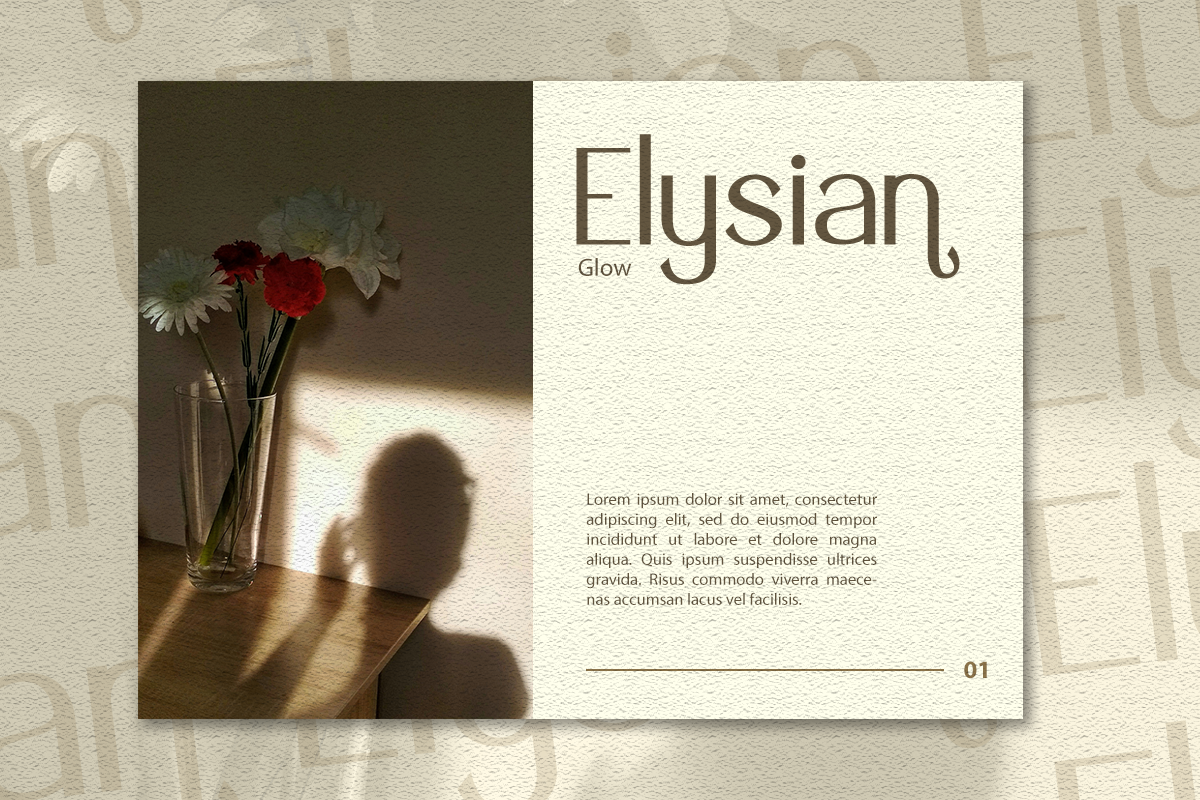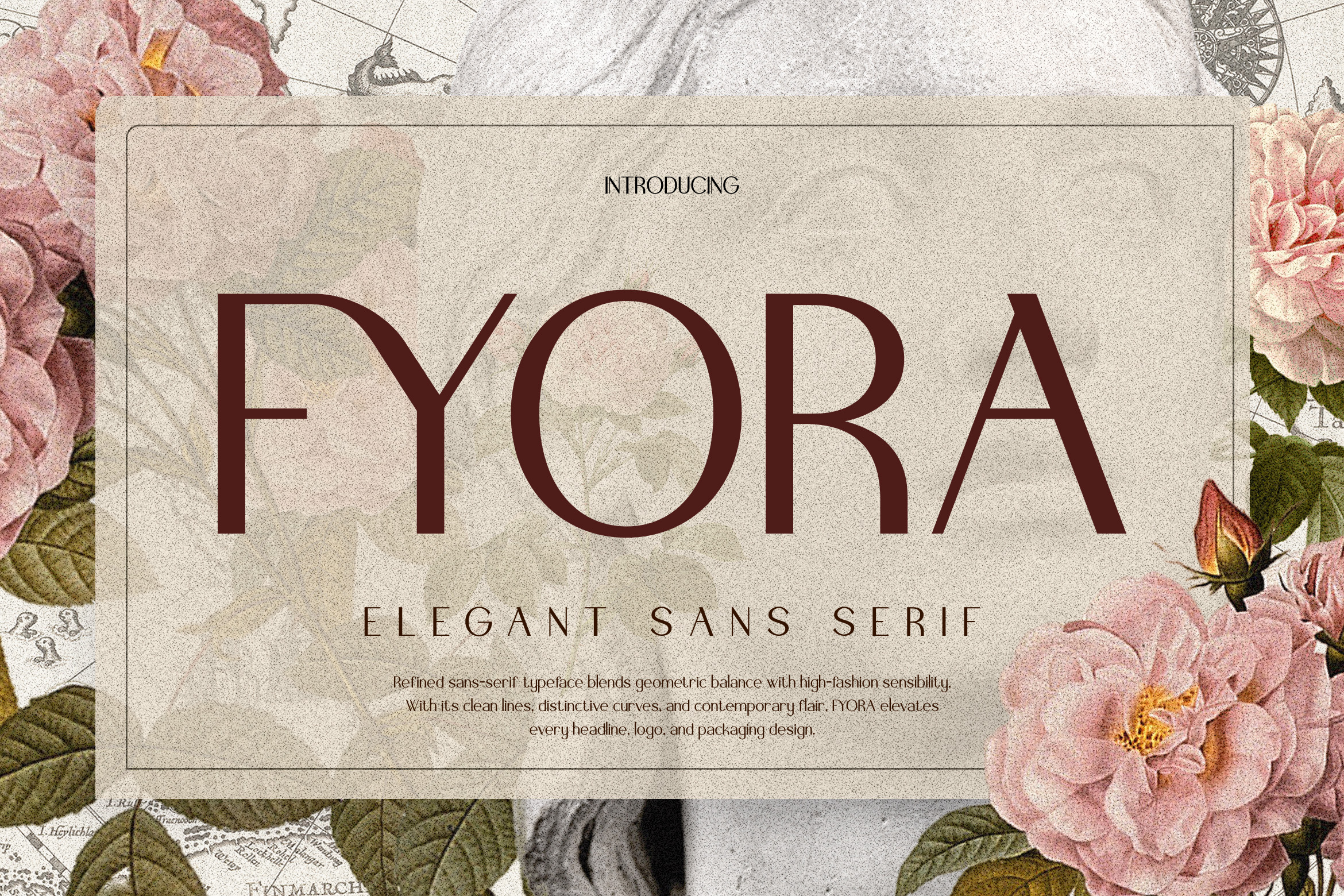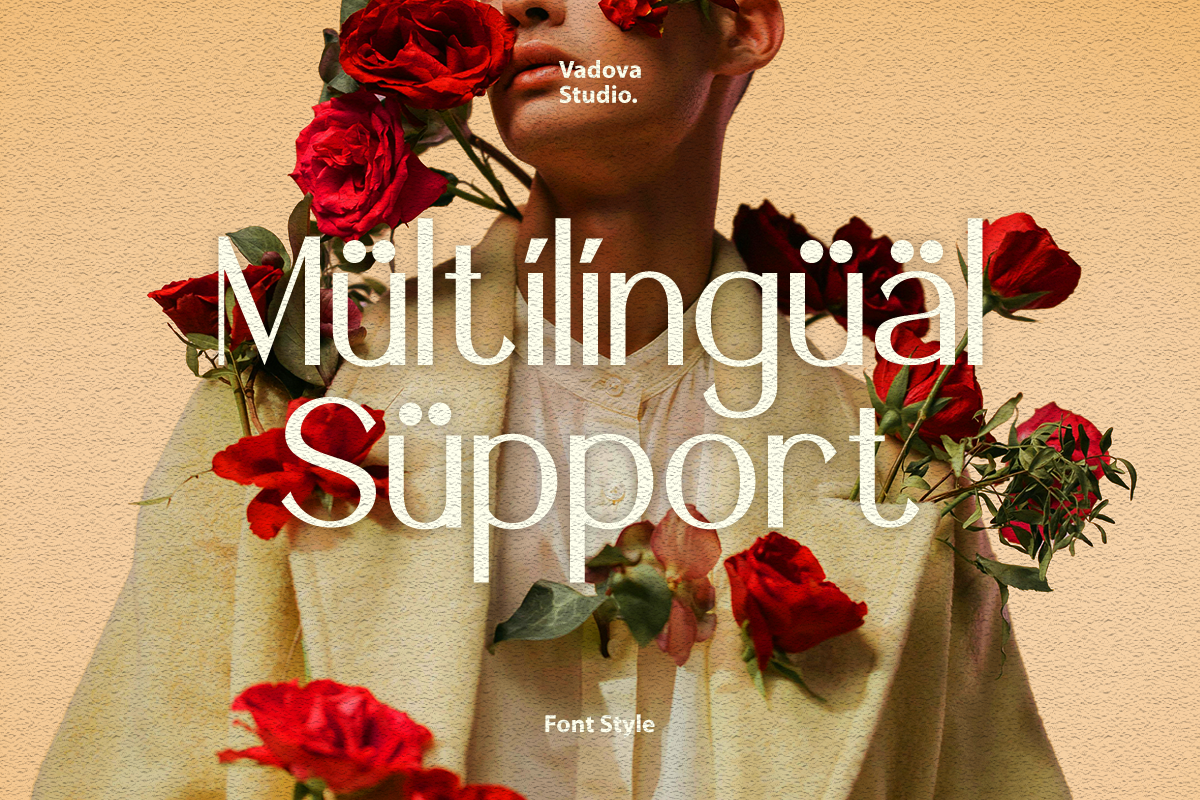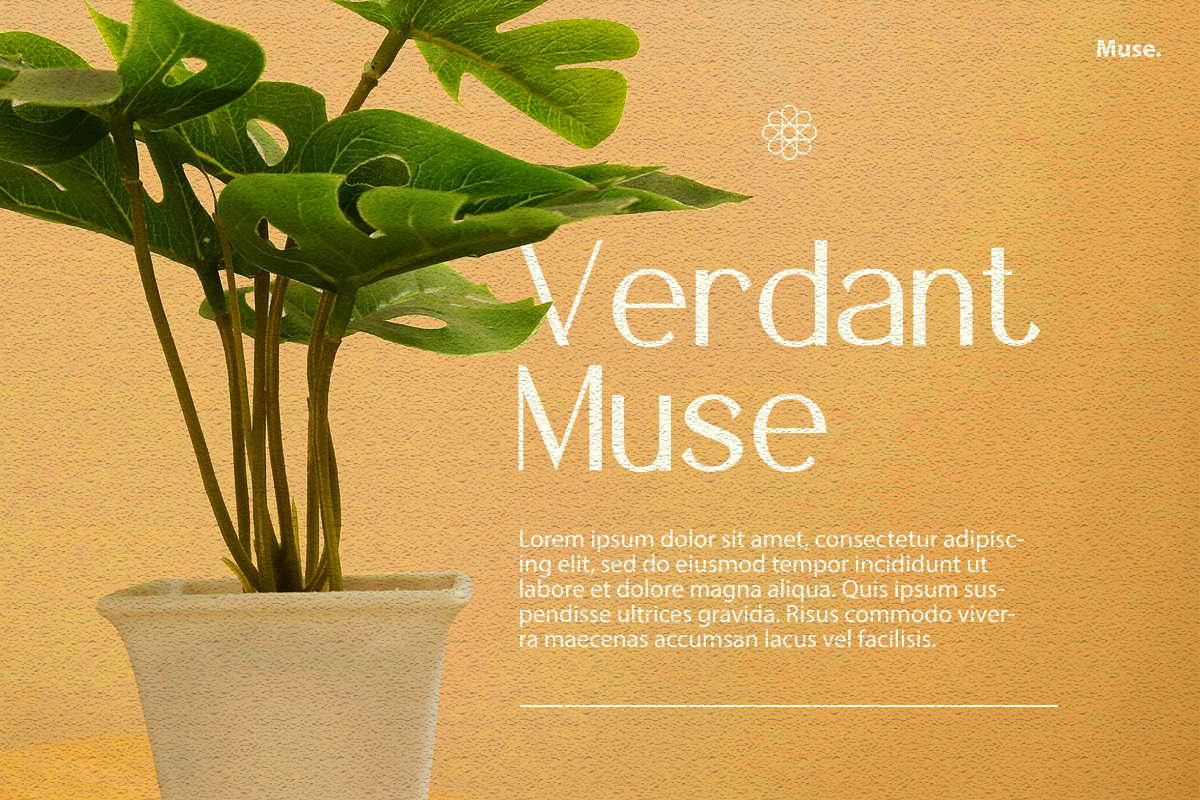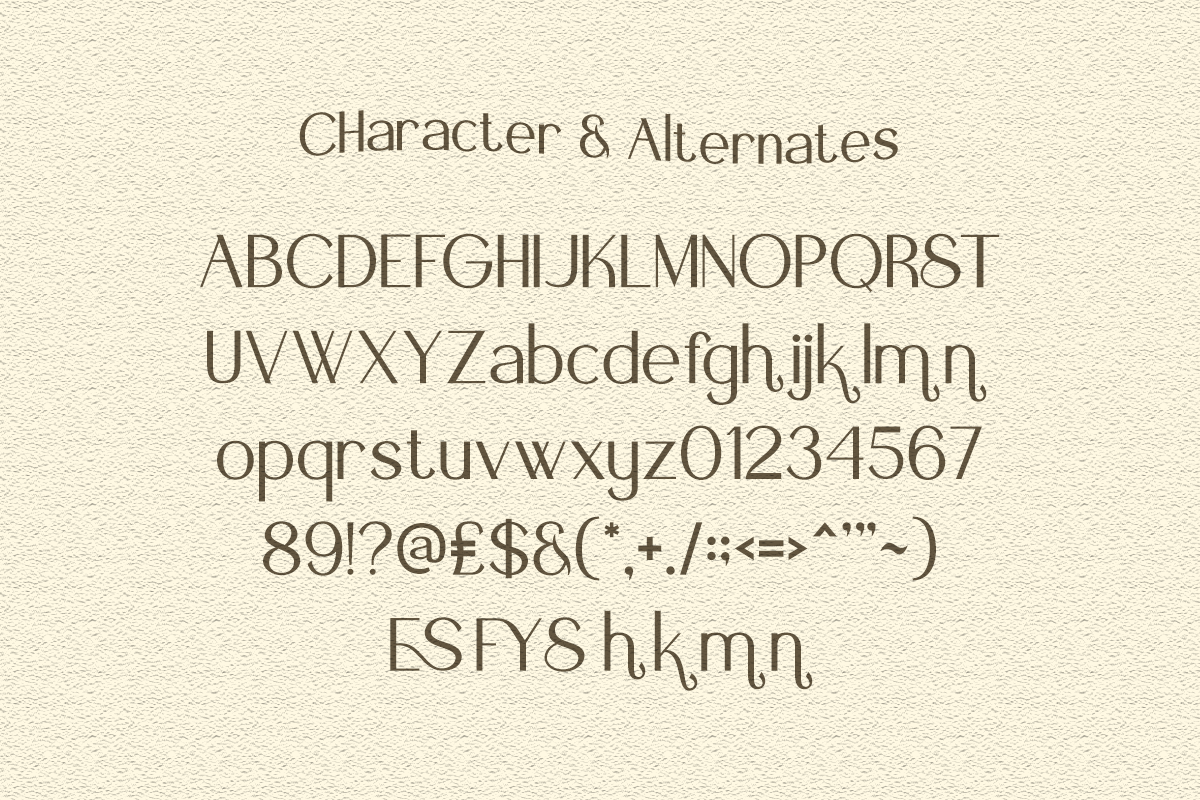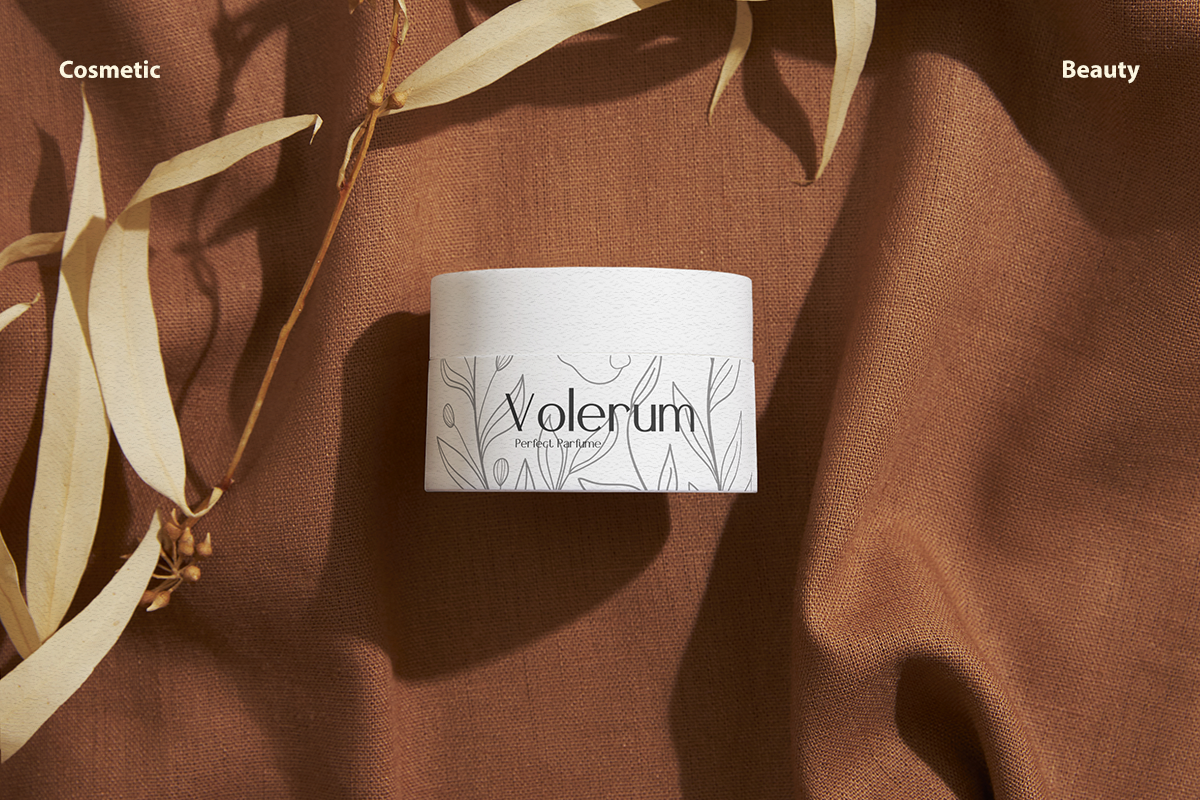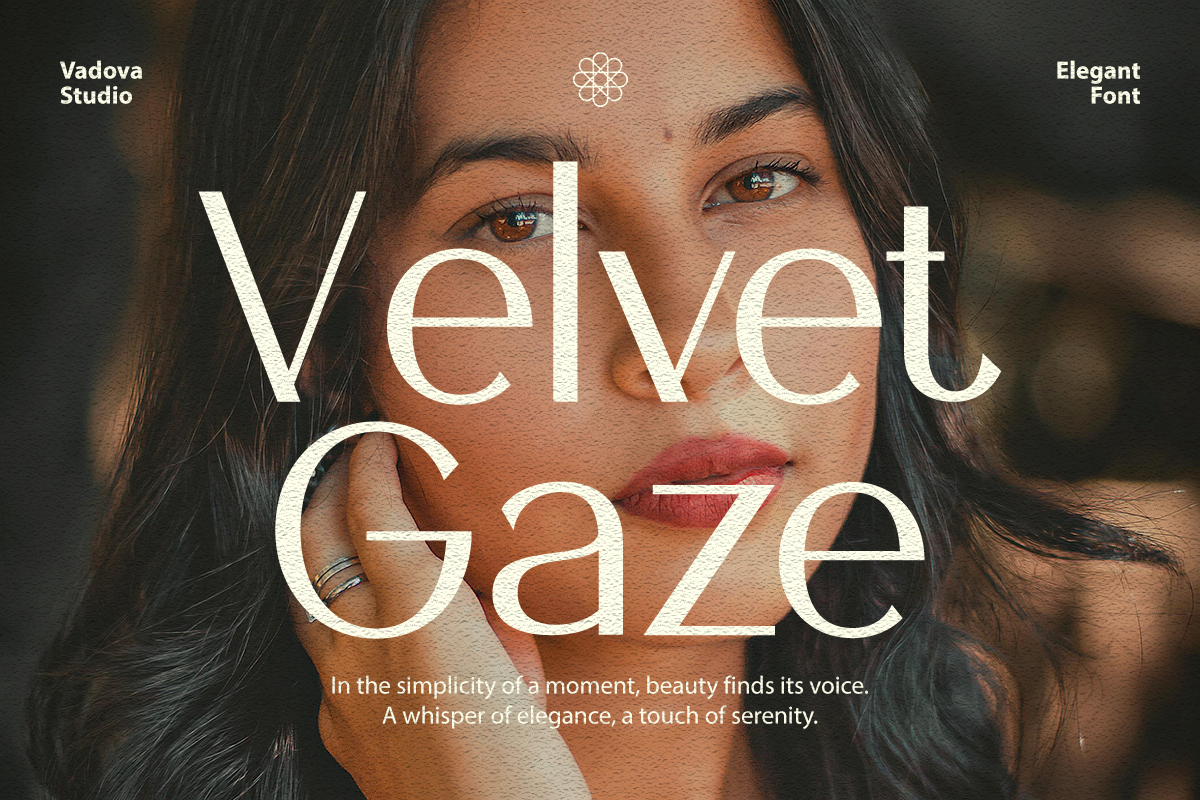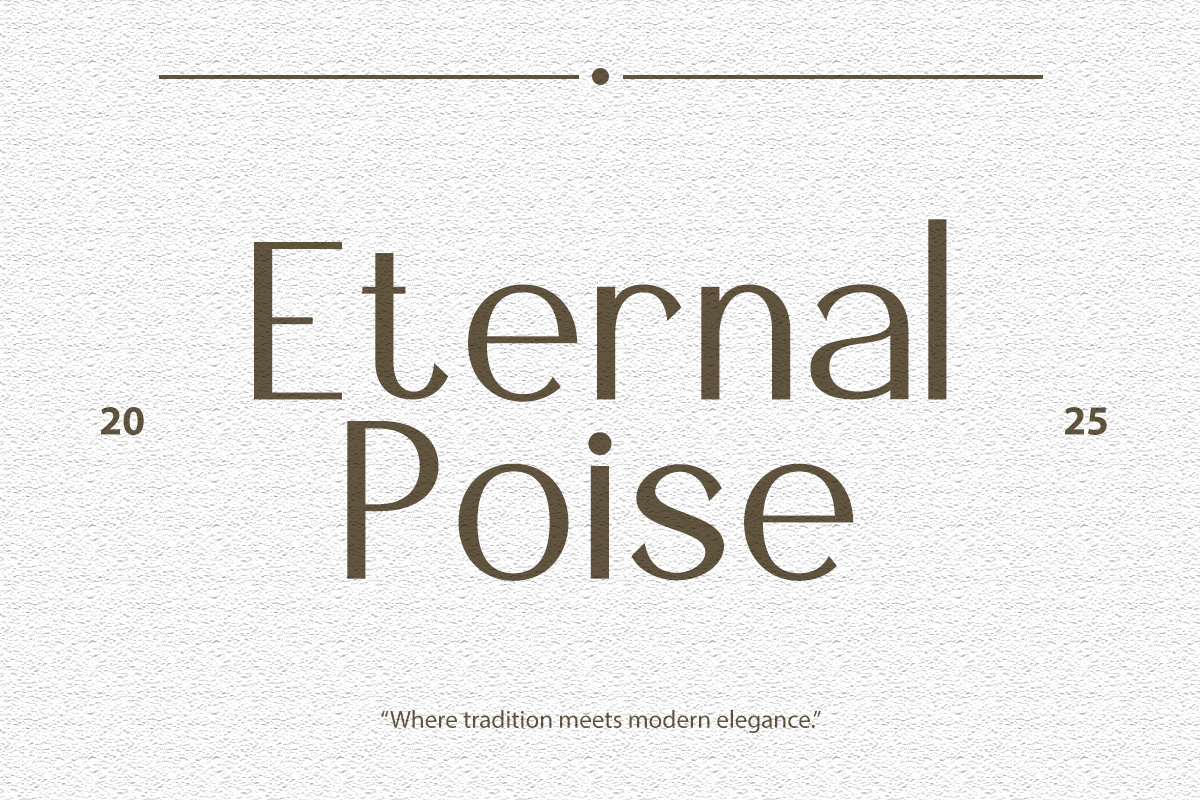
Fyora Elegant Sans Serif Font
Fyora is a refined sans‑serif typeface that beautifully bridges modern minimalism with graceful sophistication. With clean lines, distinctive curves, and a contemporary sensibility, Fyora offers a versatile yet elegant look perfect for projects that require a polished aesthetic with subtle personality. Fyora’s design draws inspiration from high‑fashion typography and editorial aesthetics, making it a natural fit for premium brands, lifestyle products, and sophisticated visual media.
Meticulously crafted, Fyora includes a complete character set: uppercase and lowercase letters, numerals, punctuation, and multilingual support. Its letterforms feature a harmonious balance between geometric precision and soft elegance, delivering readability without sacrificing style. Whether used for headlines, logos, packaging, or body text, Fyora maintains clarity and refinement. Its understated charm and versatile personality make it equally effective in sleek digital layouts or elegant print designs.
- Elegant sans-serif style combining geometric clarity
- Smooth, modern curves and precise letter balance for a refined appearance
- Subtle stylistic alternates on select characters add unique visual identity
- Consistent weight and clean terminals ensure excellent readability
- Full character set with multilingual support for versatile design applications
- High-end brand identity systems with refined visual tone
- Clean UI/UX design for minimalist apps and web interfaces
- Social media templates for fashion, design, or art accounts
- Modern portfolio websites and personal branding kits
- Elegant product packaging and premium label design
Speak with style and clarity Fyora delivers elegance in every letter